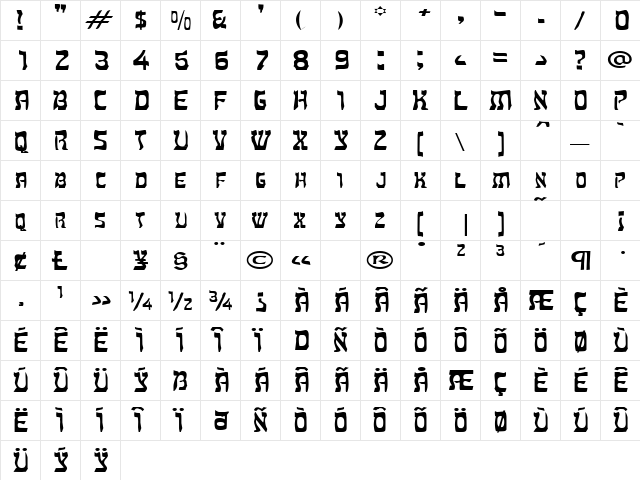
HebrewExtended Regular
Design Context for HebrewExtended Typeface
HebrewExtended is a composed and adaptable typeface that performs quietly and consistently across a wide range of design contexts.